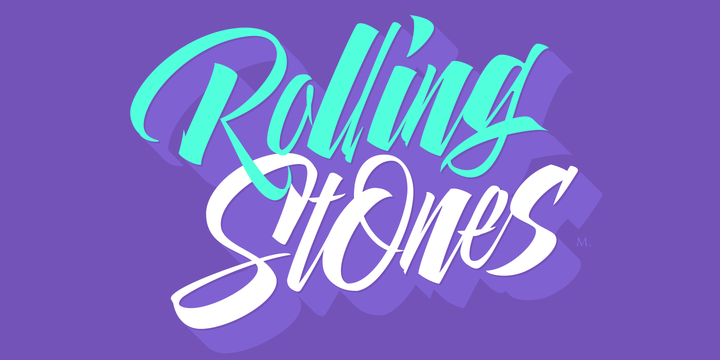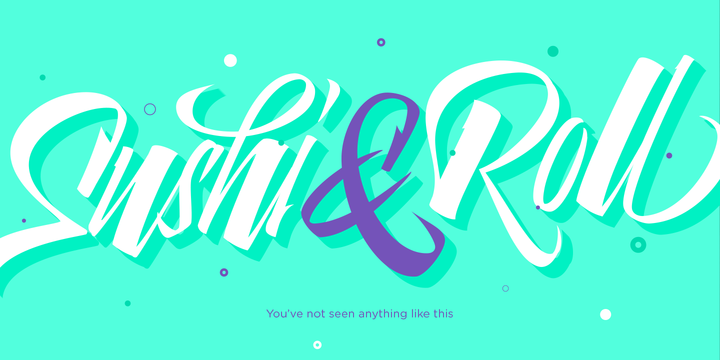
ROARRR! INTRODUCTION It is said that typography can never be as expressive as calligraphy, but sometimes it can get close enough.
More I tend to think that calligraphic trials, in order to work well as potential fonts, need first to go through very strict filters before going digital: While calligraphy is synonym of freedom (once its rules are mastered), type-design, in the other hand, has its battlefield a little tighter and tougher.
When I practice pointed brush lettering, there are so many things happening on the paper.
And most of them are delicious. The ones who know my work. may see that although many of my fonts are very expressive, my handmade brush trials are much more lively than them.
With that in mind, this time I tried to go further and rescue more of those things that are lost in the process of thinking type when first sketches are calligraphic.
I wondered if I could create something wild, hence its name Panther, by understanding the randomness that sometimes calligraphy conveys and turning it to something systemic: With Pantera, I created an ordered disorder.
Like it happens a lot in many kinds of lettering styles, in order to enrich the written word the scribe mixes the thickness of the strokes and the width of the letters.
Like one of my favorite mentors say (1), they make thoughtful gestures Some lively strokes go down with a thick, while some do that with a thin.
Some letters are very narrow, meaning some of them will need to be very wide to compensate.
Why not?. The calligrapher is always thinking on the following letters, and he/she designs in his head the combination of thicks and thins before he/she executes them.
He/she knows the playful rhythm the words will have before writing them. It takes time and skill to master this and achieve graceful results. Going back to the font, in Pantera, this combination of varying thicknesses and widths of letters were Open-Type coded so the user will see satisfactory results by just enabling or disabling some buttons on the glyphs panel.
I'm very pleased with the result since its not very easy to find fonts which play with the words' rhythm like Pantera does, following of course, a strong calligraphic base.
I believe that if you were on the prowl for innovative fonts, this is your chance to go wild and get Pantera! THE STYLES -Pantera Pro is the most complete style, and although its default look is mono-rhythmic it gets really playful and crazy like the examples of the posters by just activating the Decorative Ligatures button in the Open-type Panel of Adobe Illustrator.
However, I recommend using also the Glyphs Panel because there you'll find much more variants per letter.
Pantera Pro is in fact, coded in a way the combination of thicknesses will always look fantastic.
-Pantera Black Left, and Pantera Black Right are actually lite versions of Pantera Pro: They have very little Open-Type code, so what you see here is what you get.
Pantera Black Left has its left strokes thick, while Pantera Black Right has its right strokes thick.
-Pantera White is a lovely member in this family that looks lighter and airy, hence its name.
With the feature Standard Ligatures activated (liga) the font gets very playful.
-Pantera Caps is based on sign painters lettering and since it follows the same pointed brush rules as the other styles, it matches perfectly.
-Pantera Claws like its name suggests, is a set of icons that were done by our dear panther.